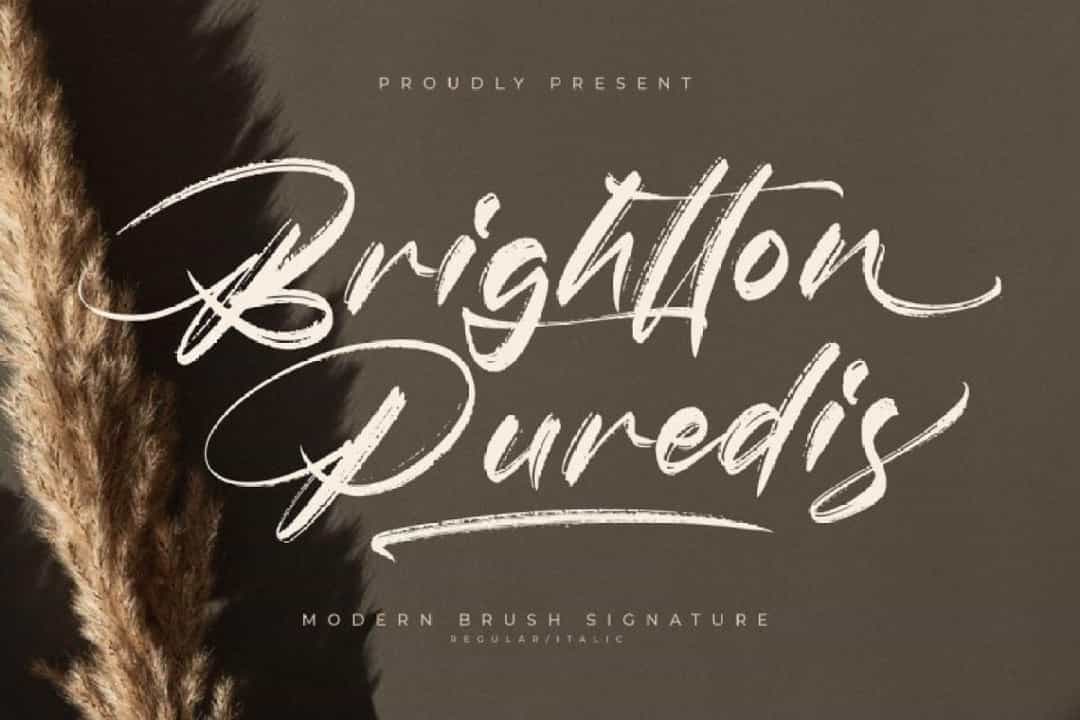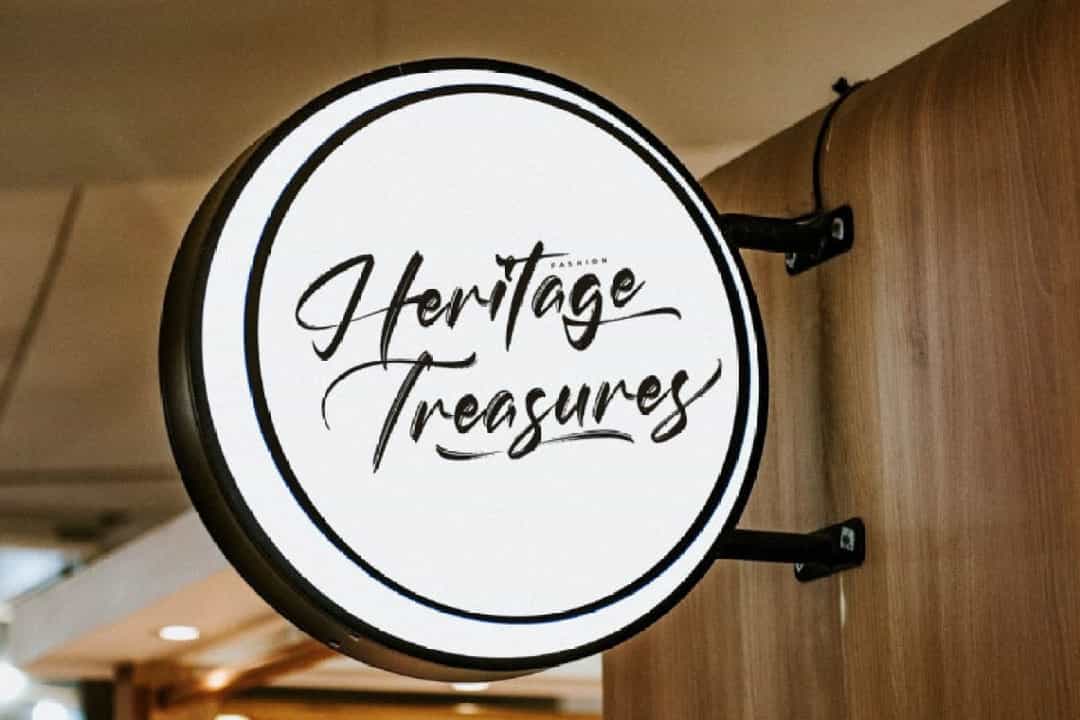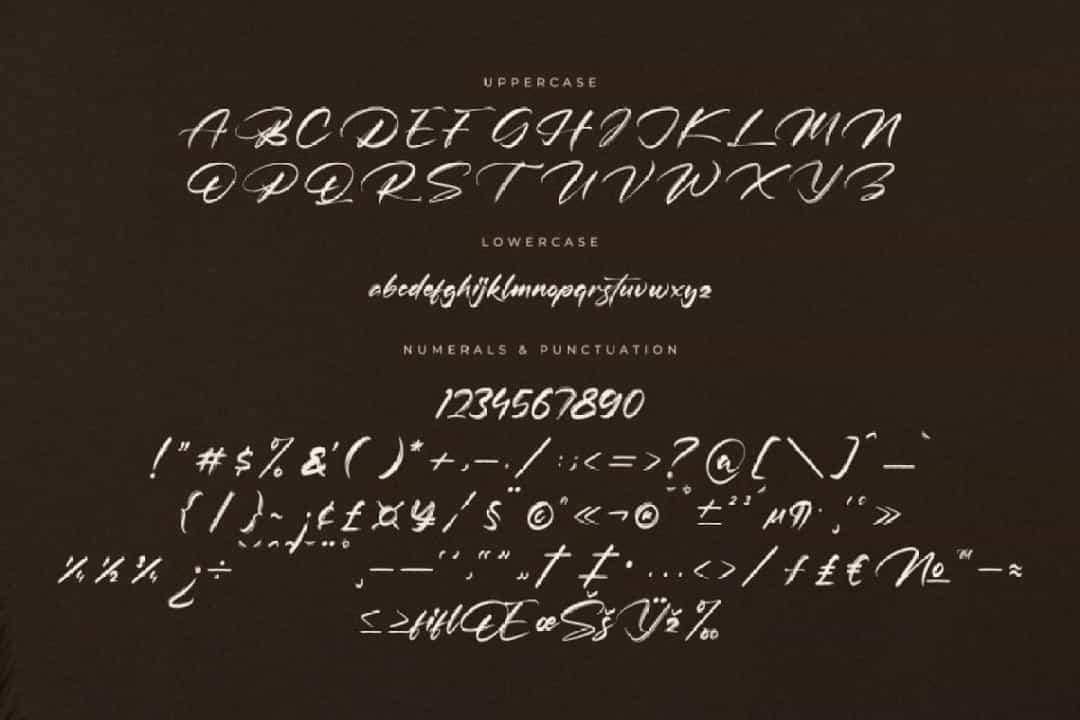
Glorytype Studio’s Brightton Puredis Contemporary Brush Font, perfect for projects of all types including logos, branding and homeware designs packaging for products, mugs posters quotes T-shirts shopping bags covers for books name cards greeting cards invitation cards labels photography watermark special events as well as any other task requiring the perfect script flavor.